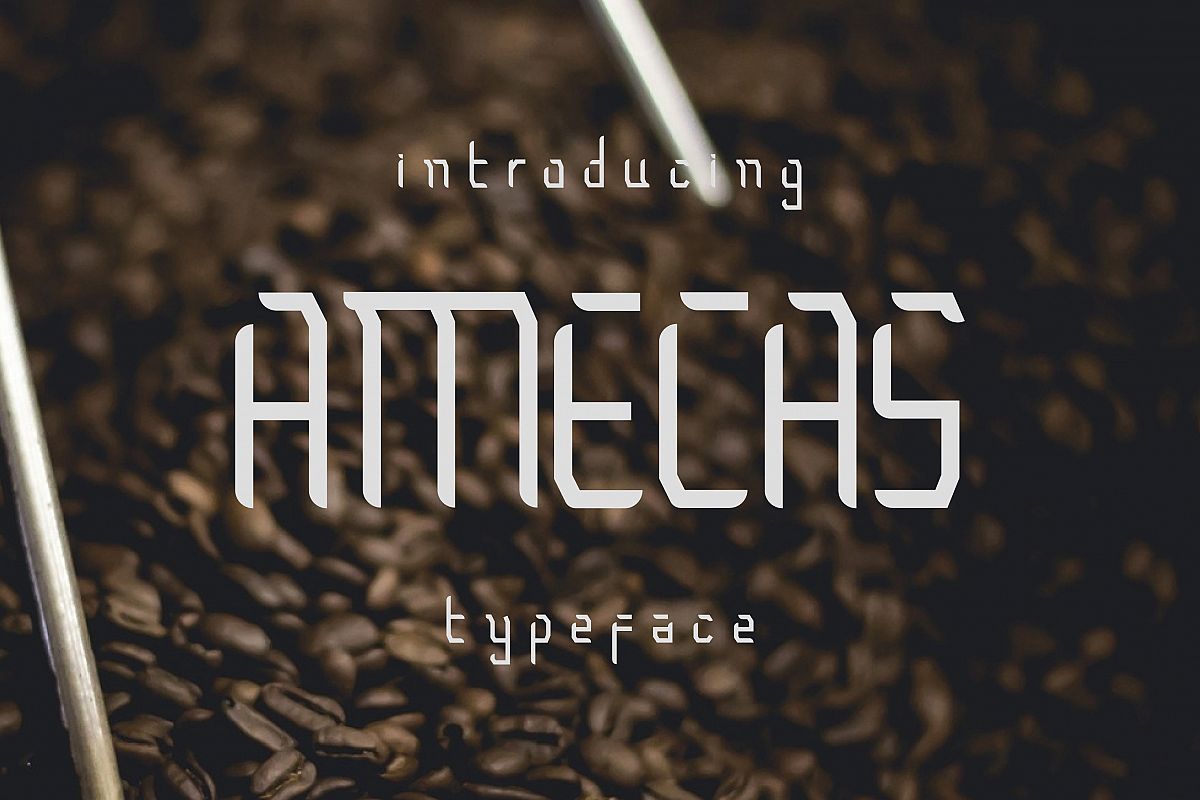
Amecas is a unique-experimental typeface inspired from mechanical engine machine. It suitable for experimental project, such us vintage digital theme, display typeface or any other projects. Grab it fast!